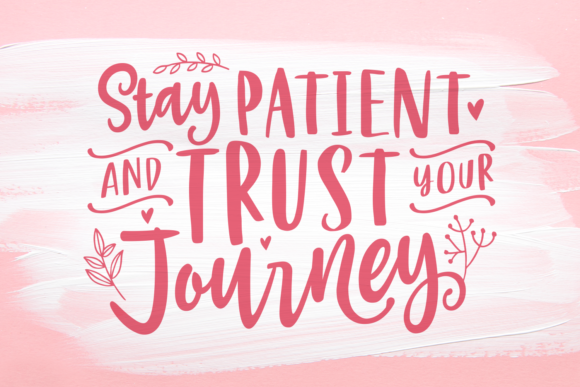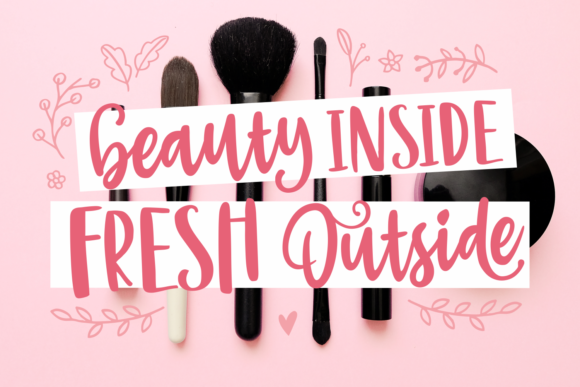
Lemonade Squash Font
db-ku.com - Script & Handwritten -- Lemonade Squash is a sweet and sour, but incredibly friendly script full of love. Get inspired by its unique charm!